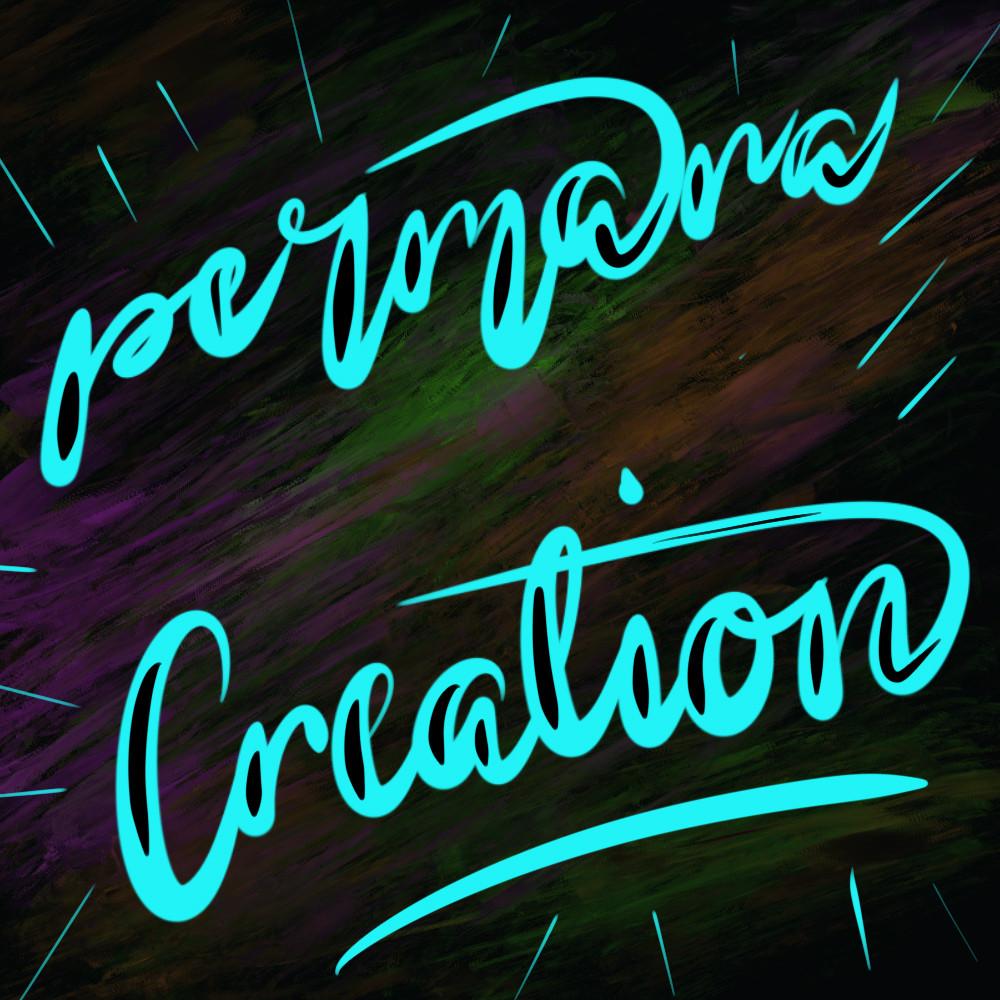
Aneesha Font Description
Aneesha is the result of a combination of art and beauty which is very suitable for product advertisements, invitation cards, brand logos, and everything related to the promotion and advertisement of your products. This font is PUA encoded which means you can access all of the glyphs and swashes with ease!